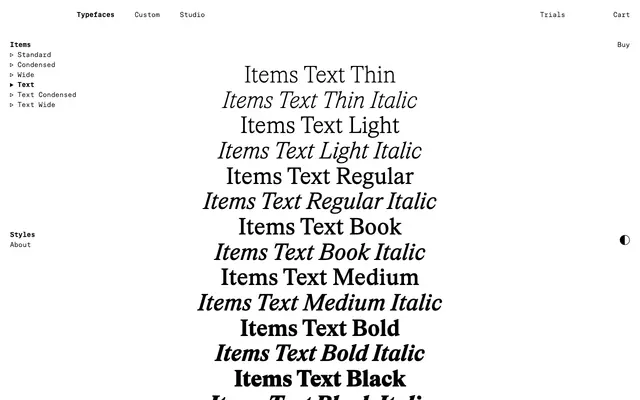
Items Text
The text optical-size branch of Items: a sturdier transitional serif for body copy, with subdued contrast, open spacing and seven weights including Book.
Items Text is the text-size branch of the Items system. A more robust build, subdued stroke contrast and open spacing make it suitable for body copy and long-form reading. Seven weights from Thin to Black, including an extra Book weight, are matched with italics, and the cut sits inside a wider Items system that extends across Condensed, Standard and Wide widths in both Display and Text branches. Latin Extended language support, multiple numeral sets and a pixel set of arrows, punctuation and icons echoing Susan Kare's work round it out.
The Text branch of Items, with subdued stroke contrast, open spacing and an additional Book weight; designed for pleasant performance in body sizes within the wider Times-lineage Items system.